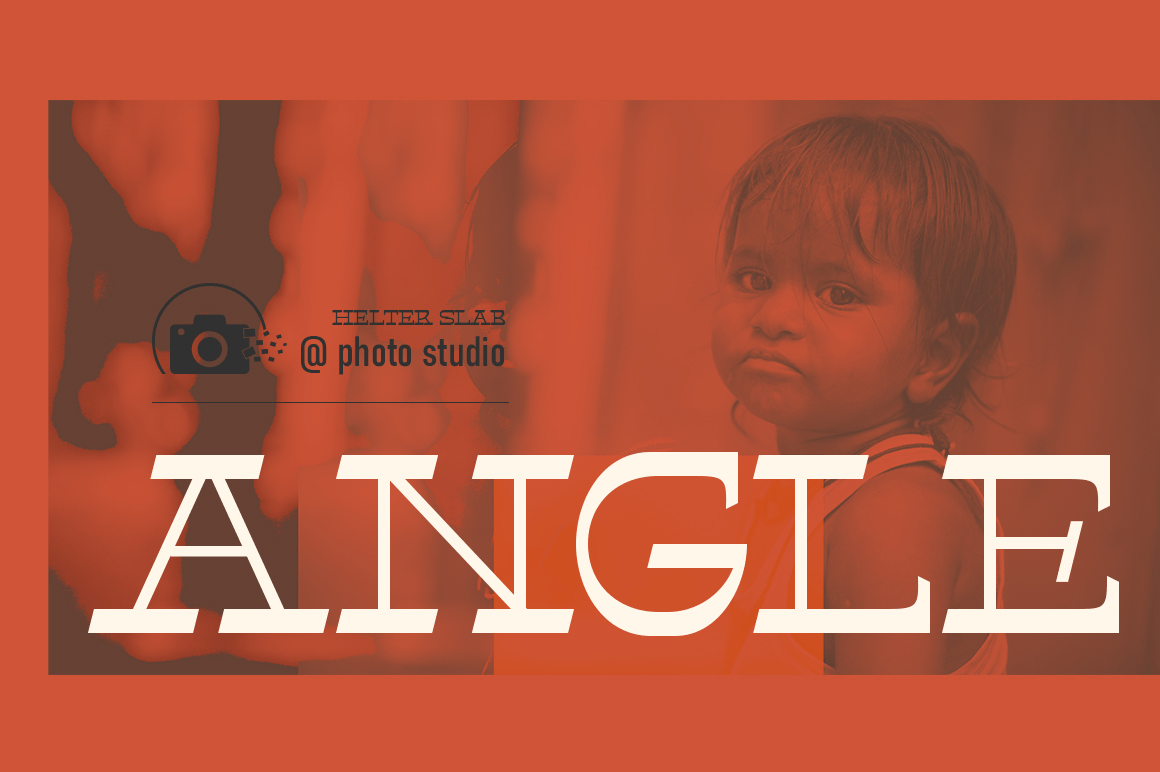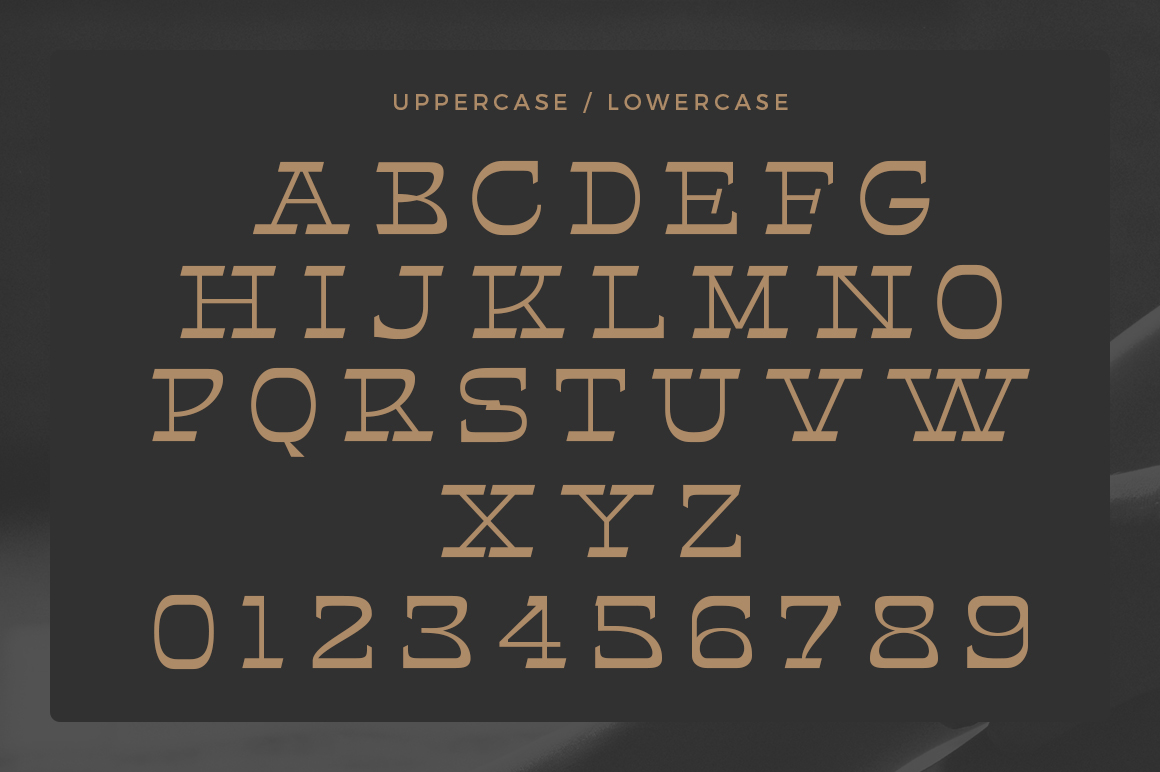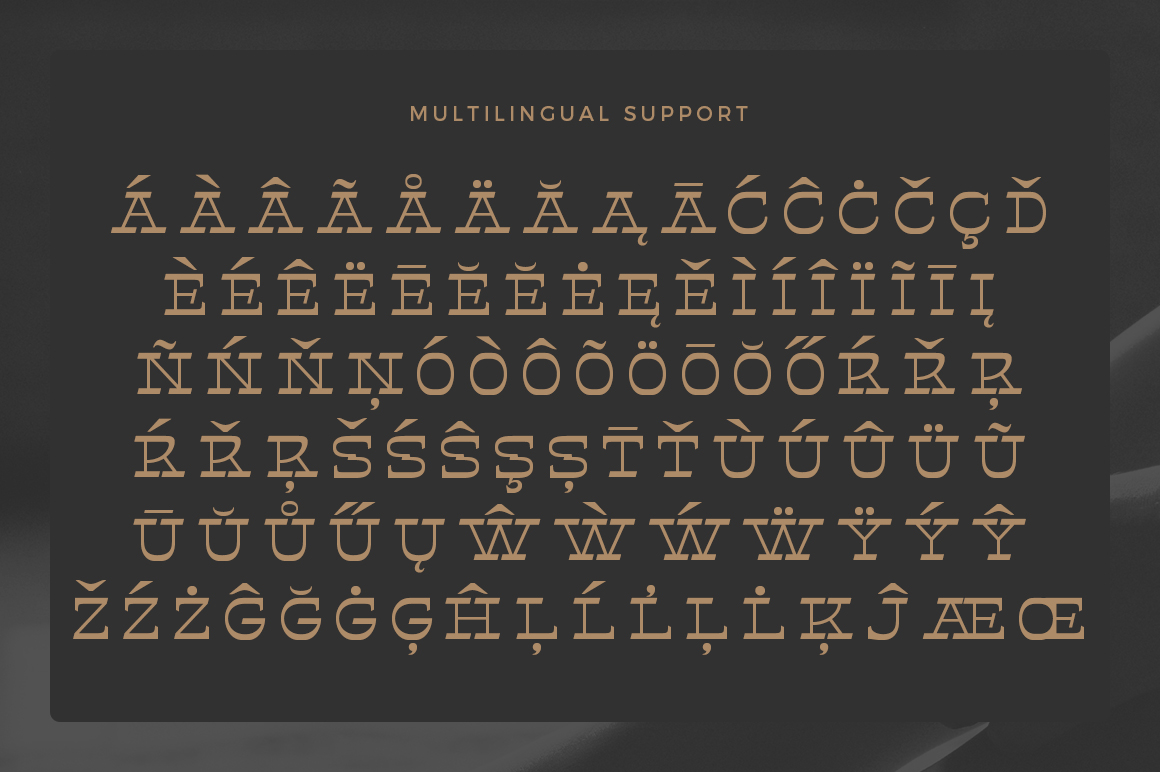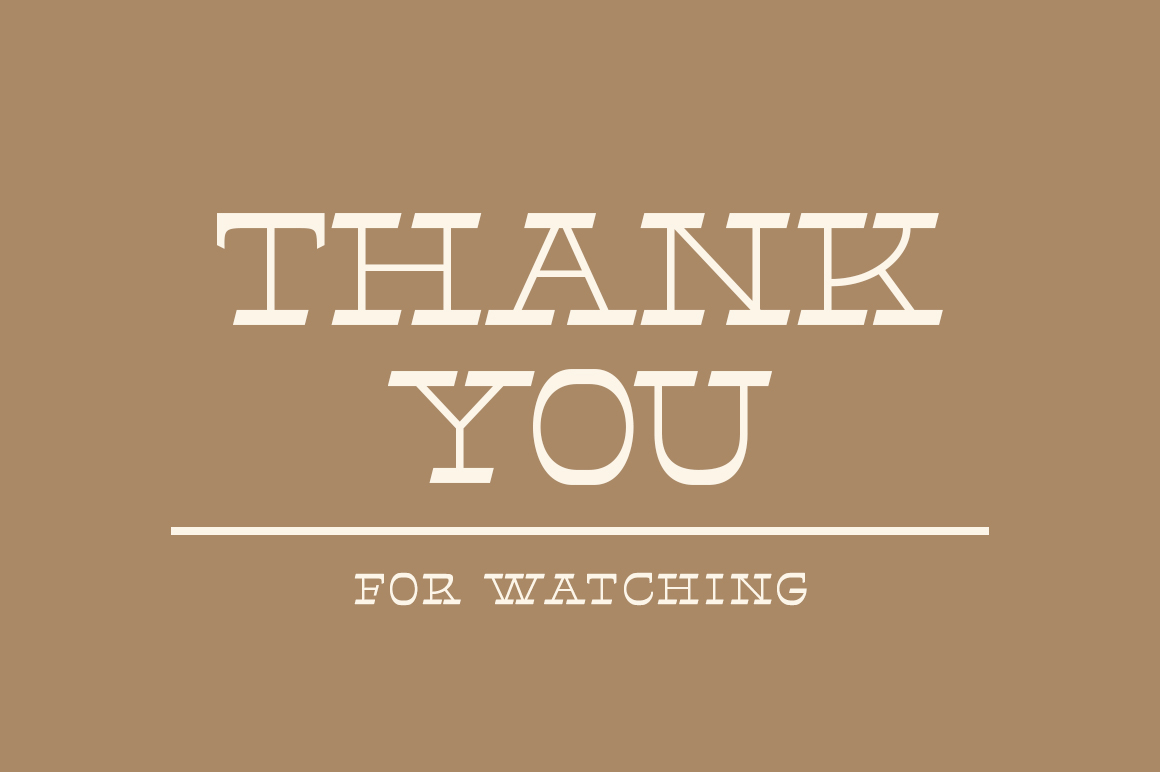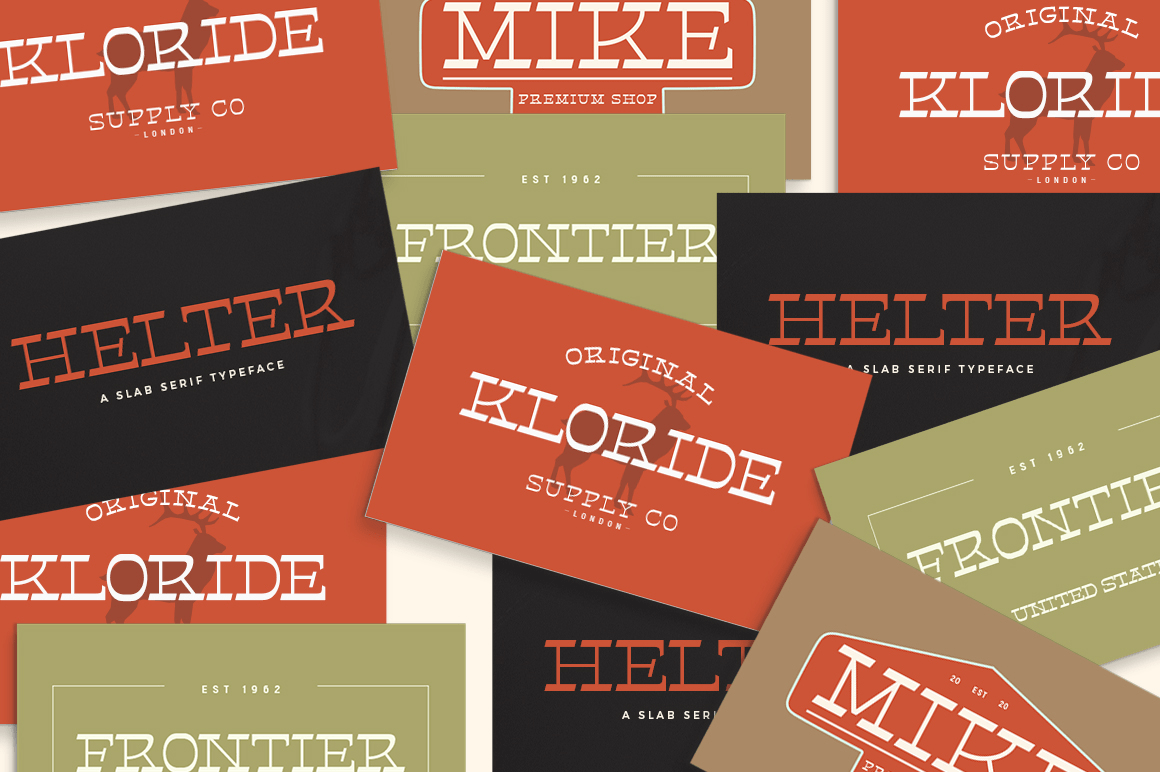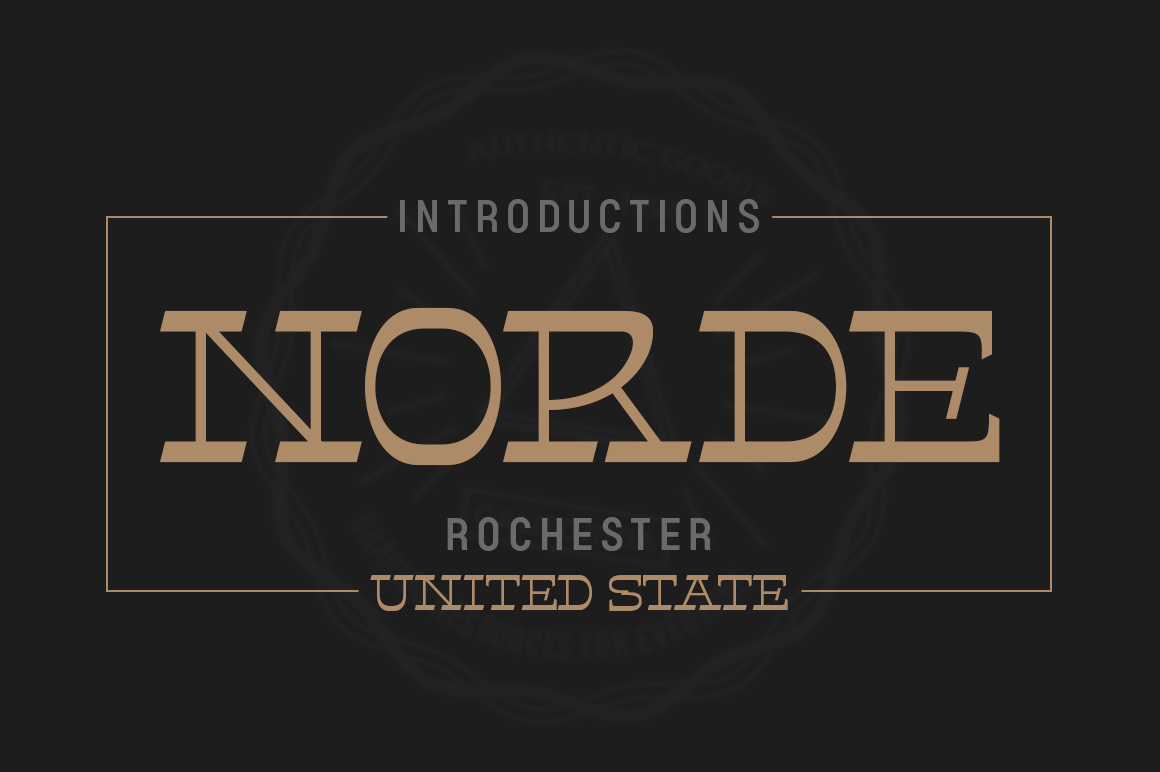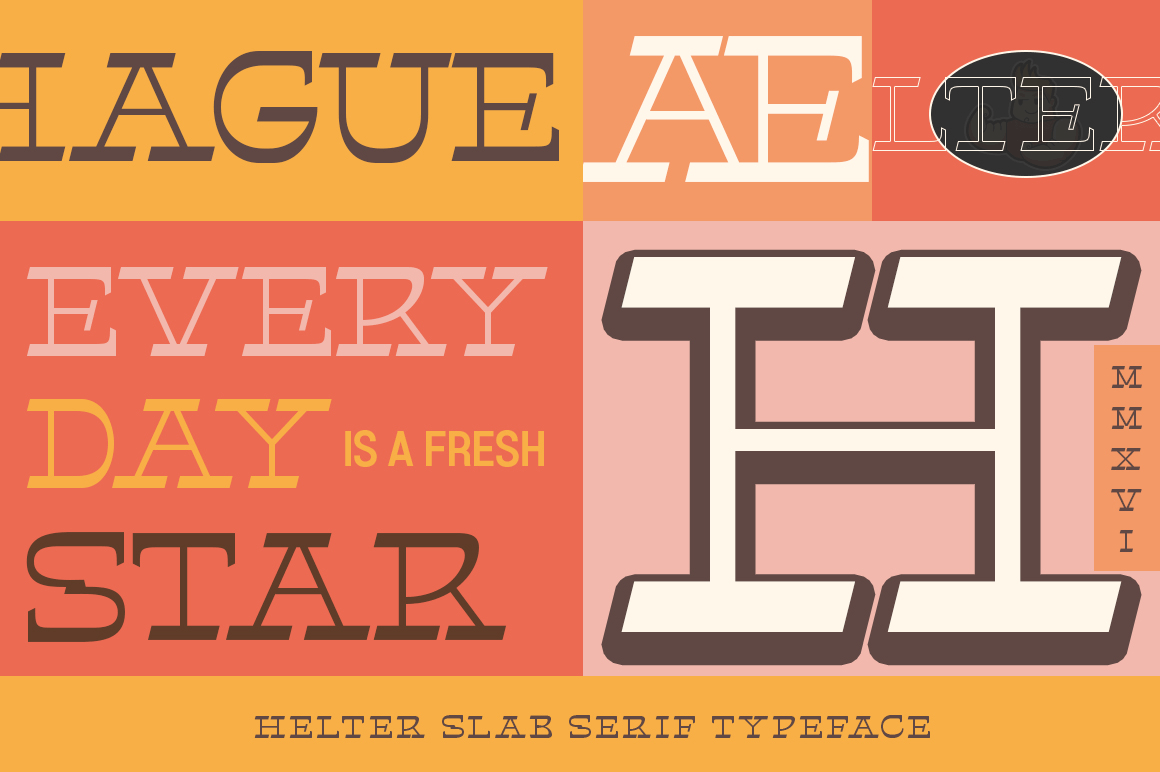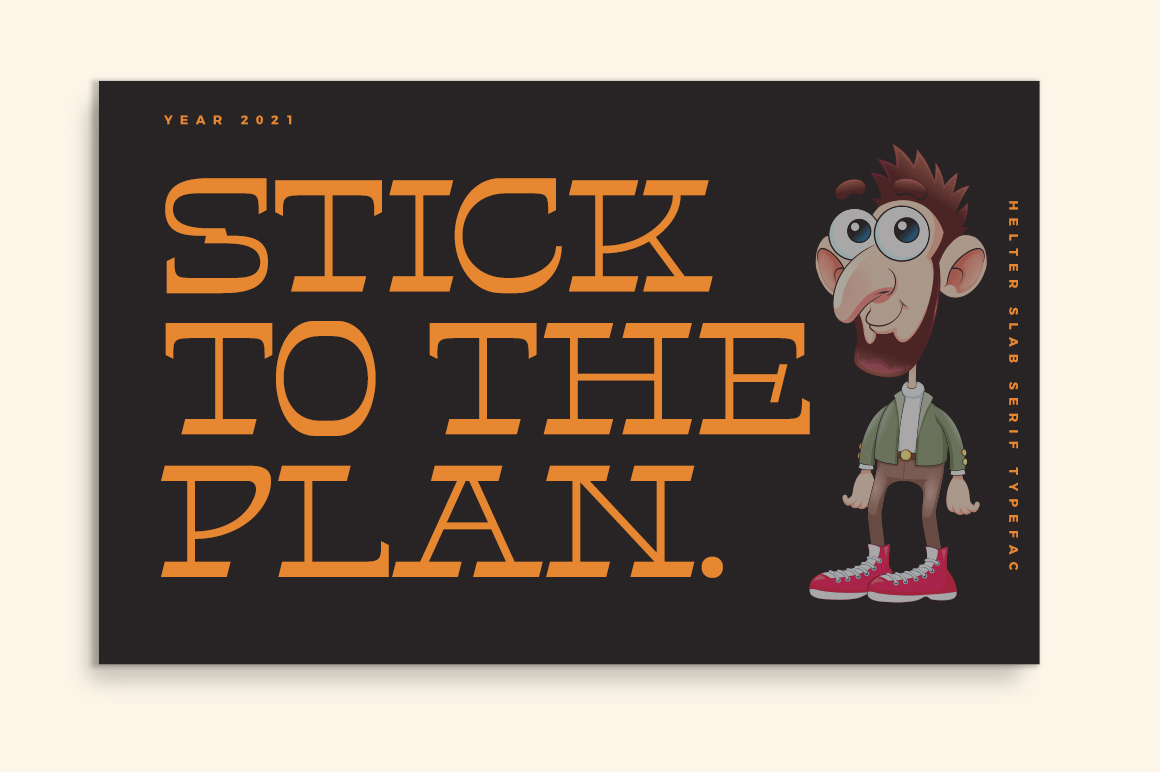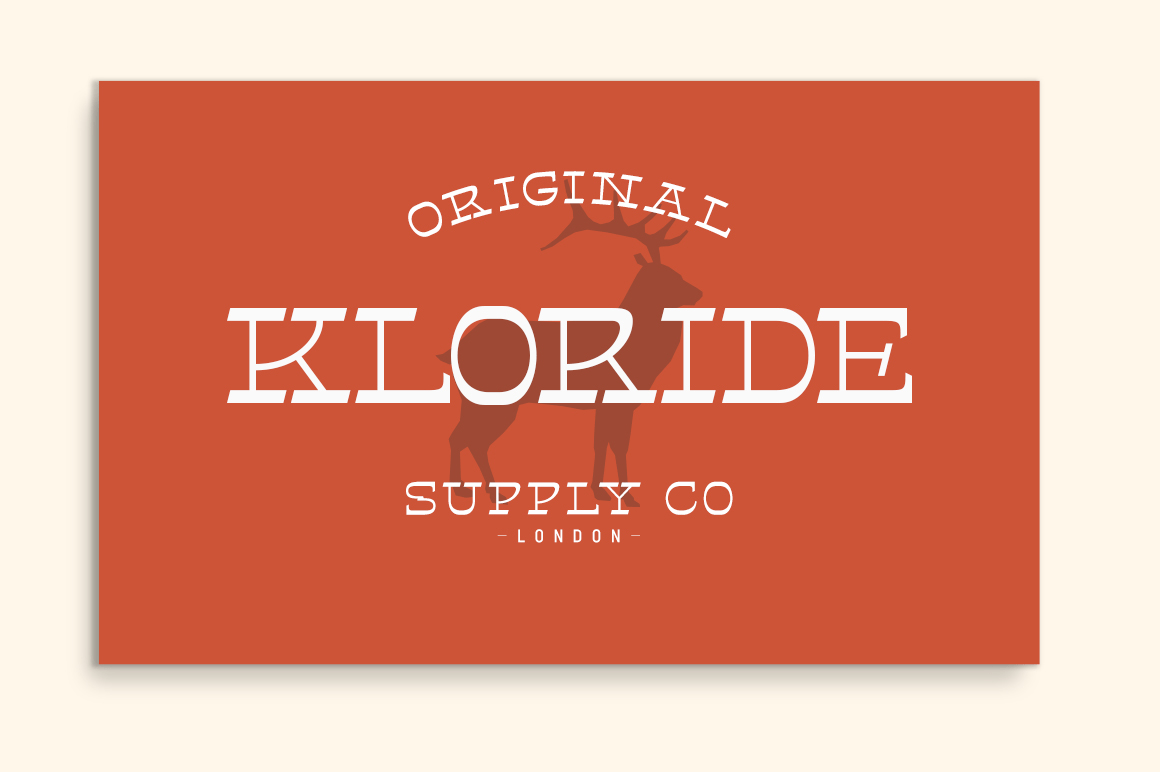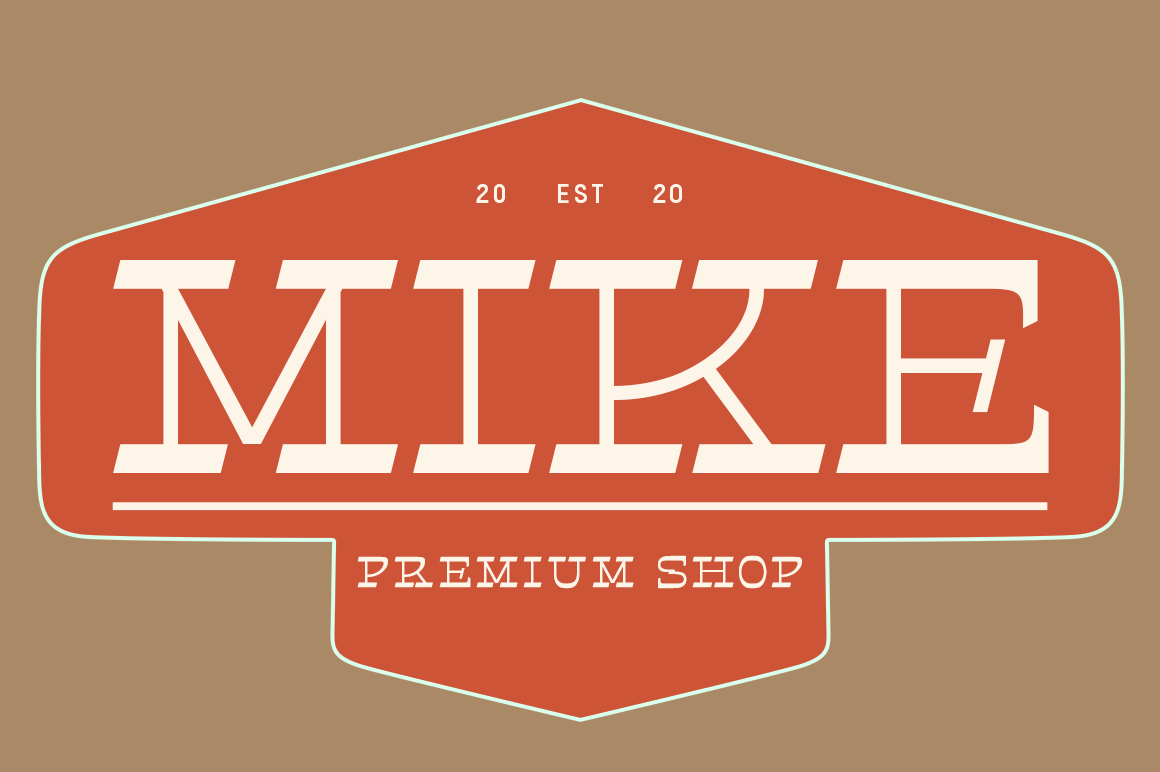
Helter
NEW! Helter is a slab-serif font that gives off a clean and very elegant feel that has a strong and bold look. The slab is thick and does not regret the size of the width.
The slab-serif Helter is perfect for your upcoming project which is applied especially to various other formal forms such as invitations, labels, logos, magazines, books, greeting/wedding cards, packaging, fashion, make up, stationery, novels, home decor labels, book/cover titles, special events and many more.